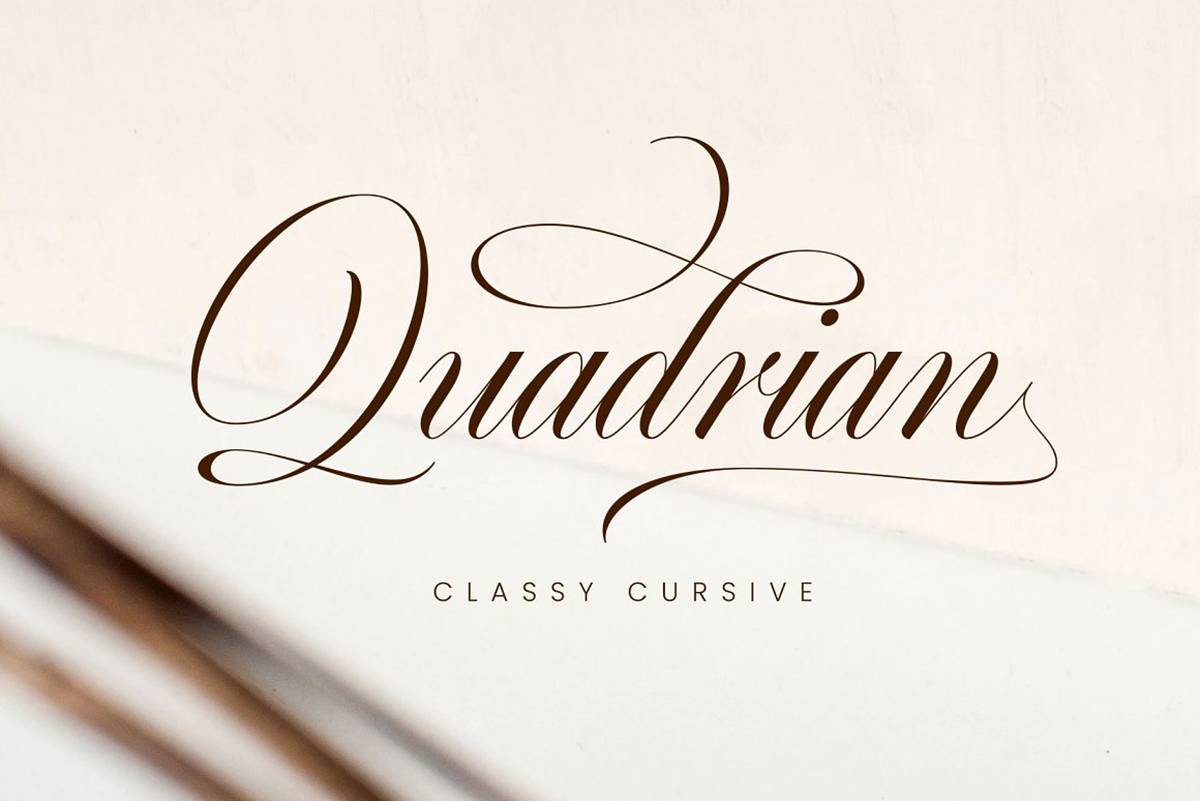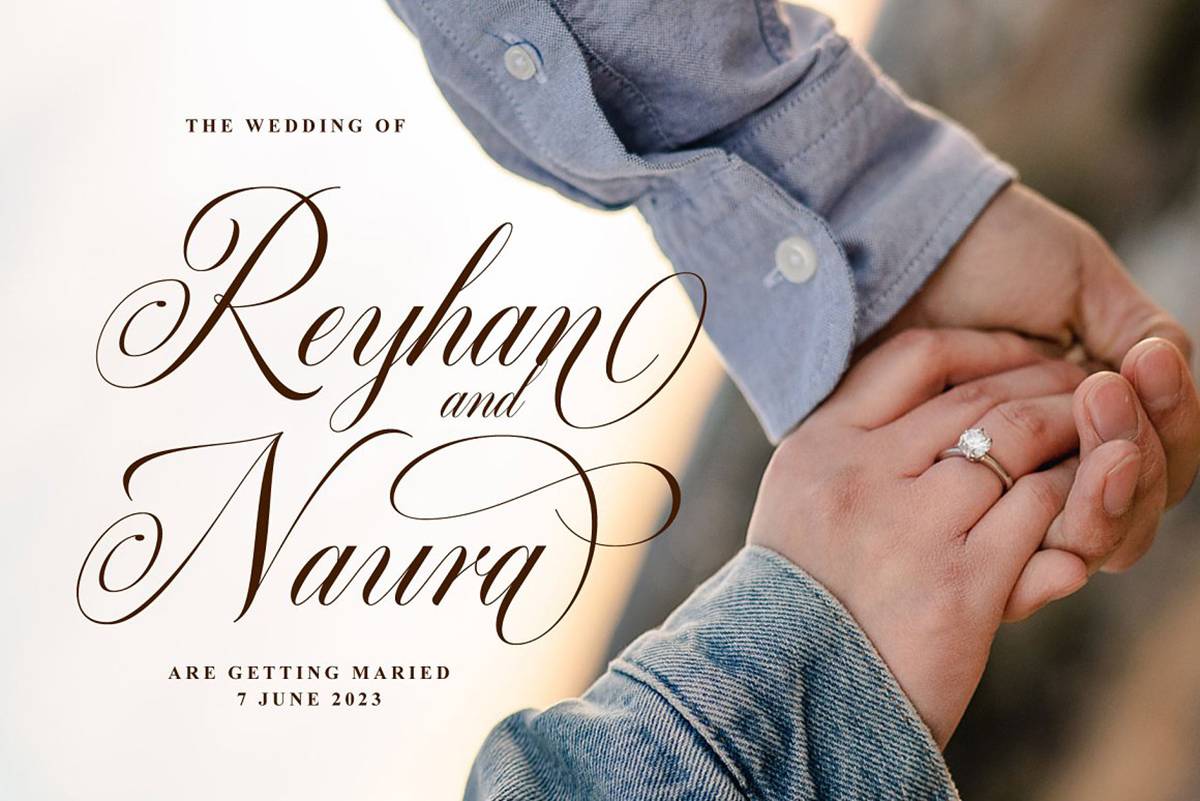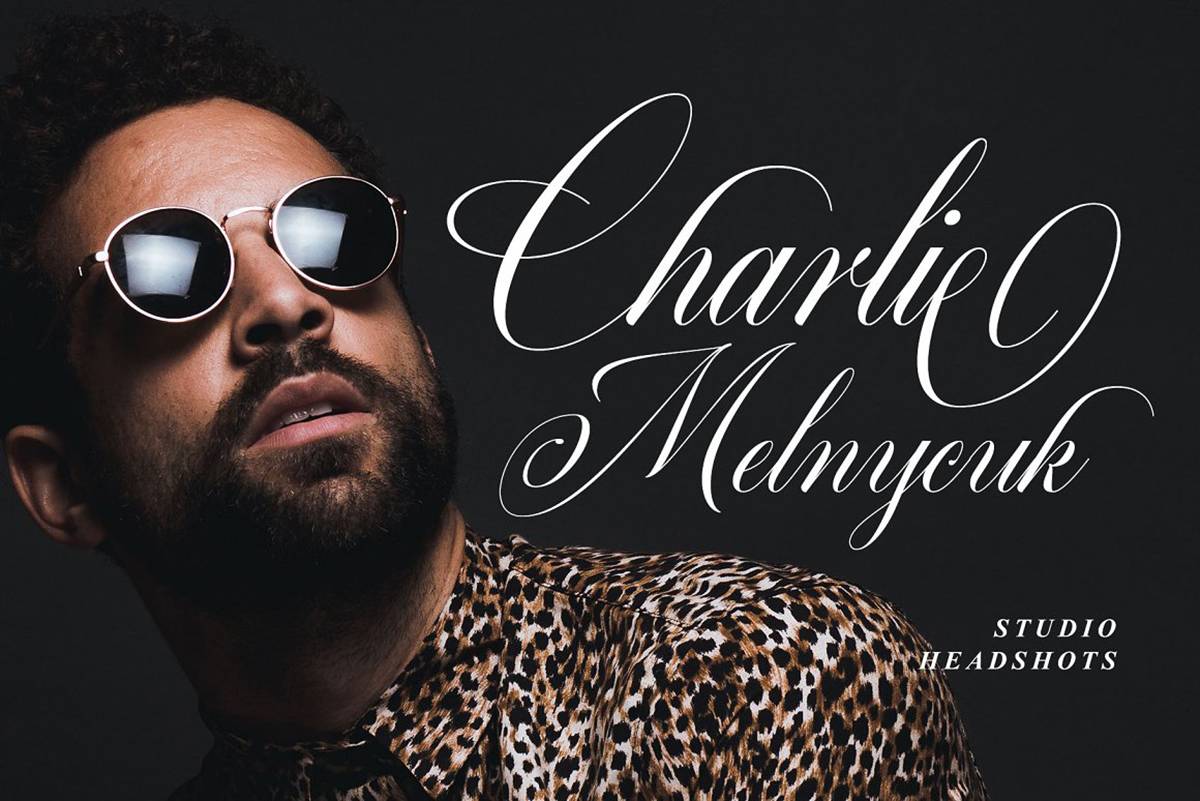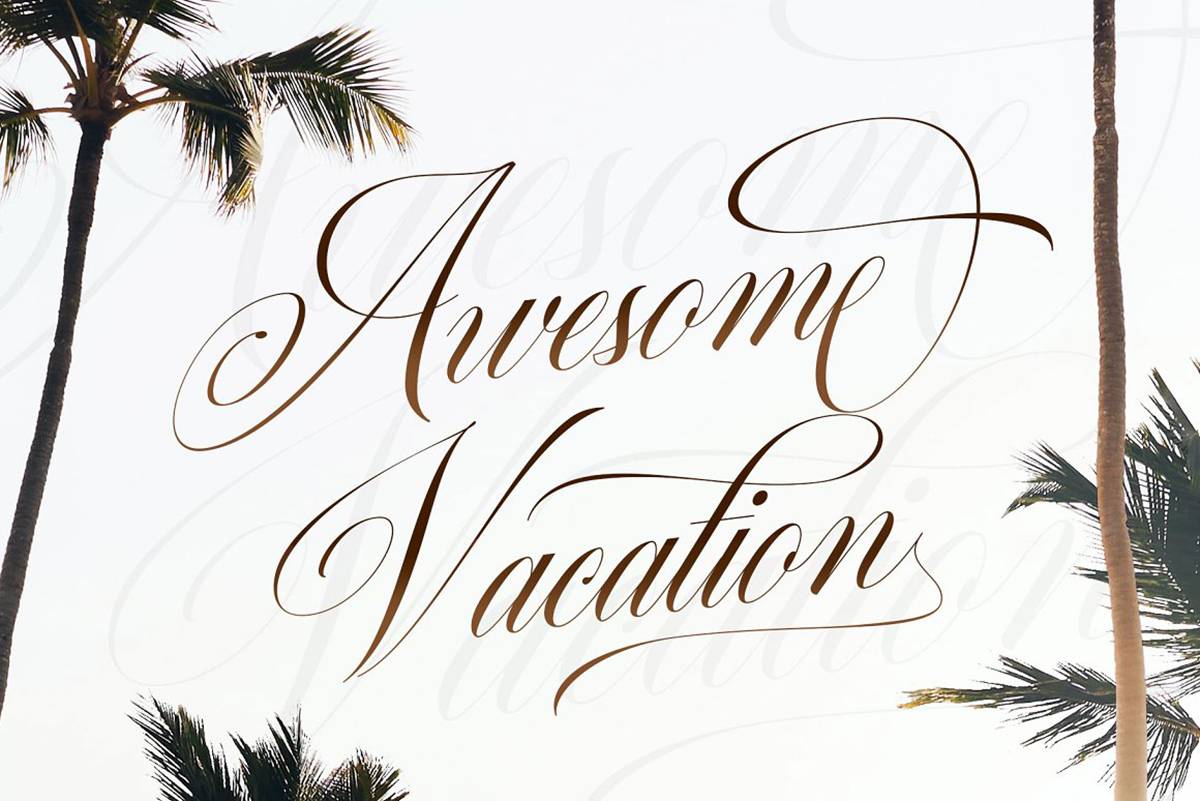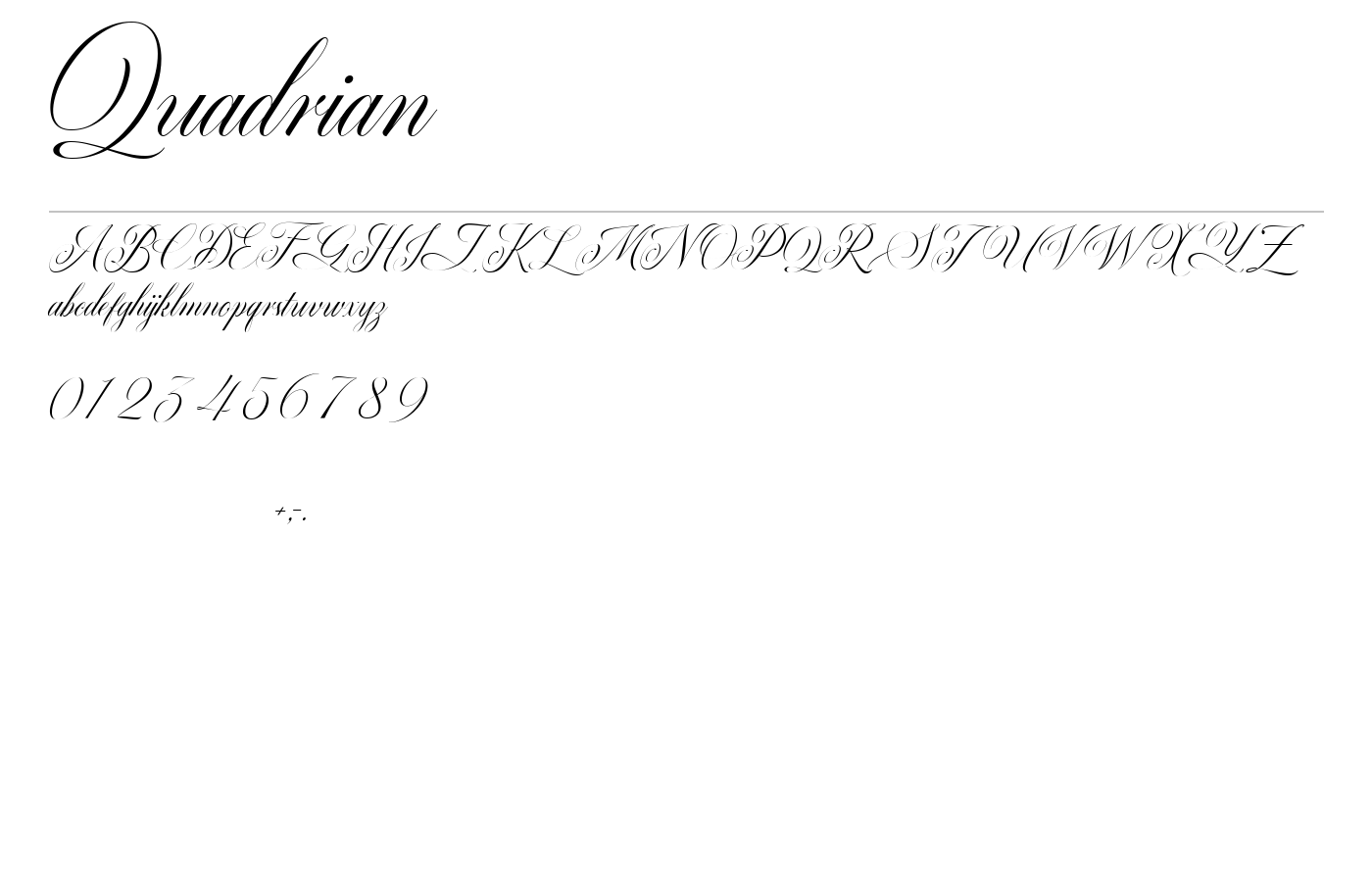
Quadrian is an elegant, high-contrast script font featuring delicate, flowing strokes and refined letterforms that evoke a sense of luxury and sophistication. Its slender, graceful characters with elaborate swashes make it ideal for upscale branding, invitations, and decorative headlines where a touch of classic refinement is desired. This font works best in display settings where its fine details can be appreciated without sacrificing readability.
Quadrian Font
About Quadrian Font